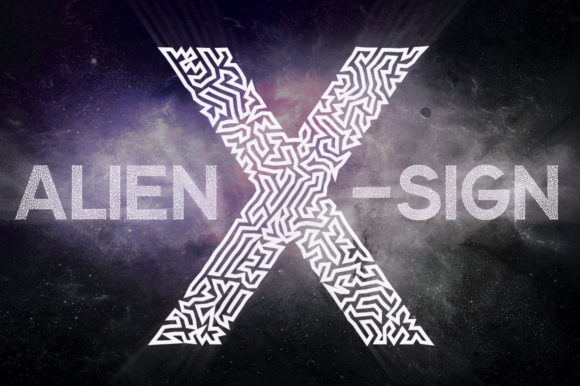
Prepare to be captivated by Alien X Sign, a display font that transports you to the future with its dazzling effect. This extraordinary creation by Royaltype is designed to ignite your creativity and leave an unforgettable impact.
Alien X Sign is not just a font; it's a visual odyssey that pushes the boundaries of imagination. Its distinctive glyphs, reminiscent of radiant neon signs, are like stardust illuminating the digital landscape. Each letter, meticulously crafted with futuristic precision, dances before your eyes, enchanting you with its otherworldly charm.
Step into a realm where your designs come alive with an electric vibrancy. Alien X Sign is the perfect font to capture the essence of cutting-edge technology, cosmic wonders, or any theme that calls for a touch of the extraordinary. Unleash your imagination and watch as your projects transform into captivating masterpieces that radiate an aura of innovation and boundless creativity.
With Alien X Sign, you hold the power to elevate your designs to new heights. Its versatility knows no bounds, effortlessly adapting to a symphony of creative endeavors. Whether you're a graphic designer seeking to leave a lasting impression, a web designer aiming for a captivating online presence, or a content creator searching for a font that speaks volumes, Alien X Sign stands ready to be your creative companion.
Harness the allure of Alien X Sign and witness the metamorphosis of your designs. Its ethereal beauty will captivate your audience, leaving them spellbound by your creative genius. Each project you undertake, infused with the magic of Alien X Sign, will be a testament to your artistic vision and unwavering commitment to excellence.